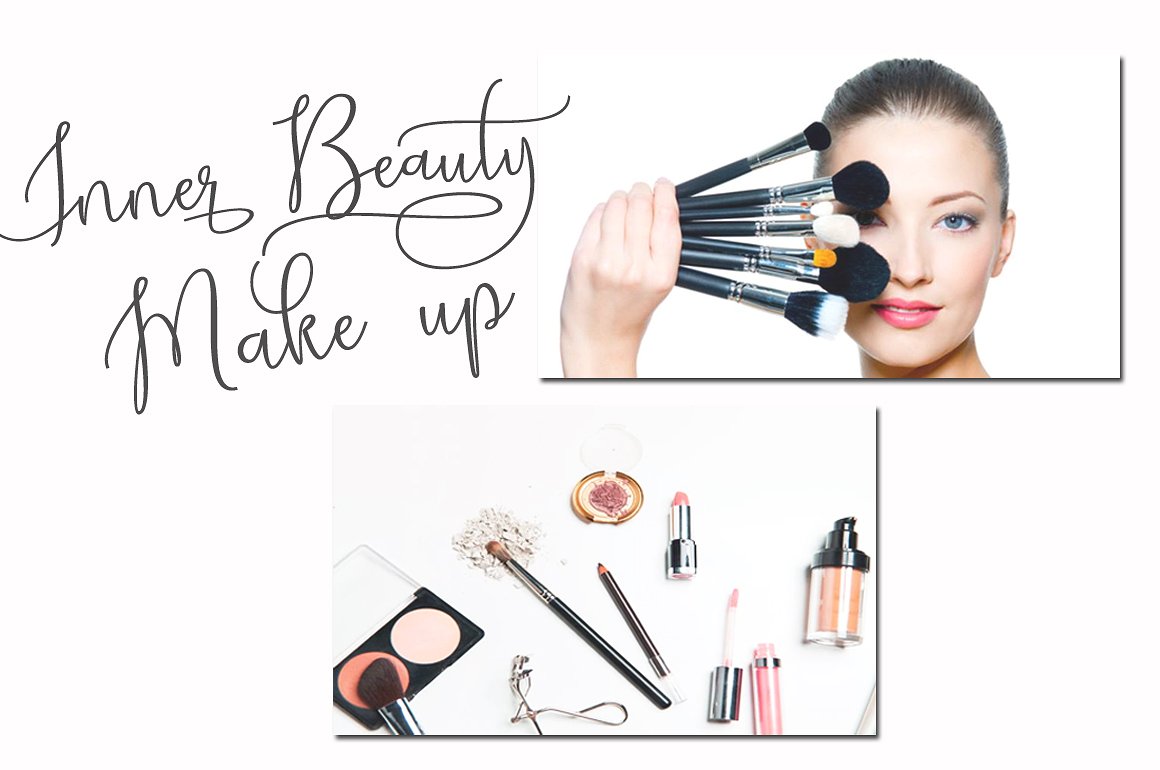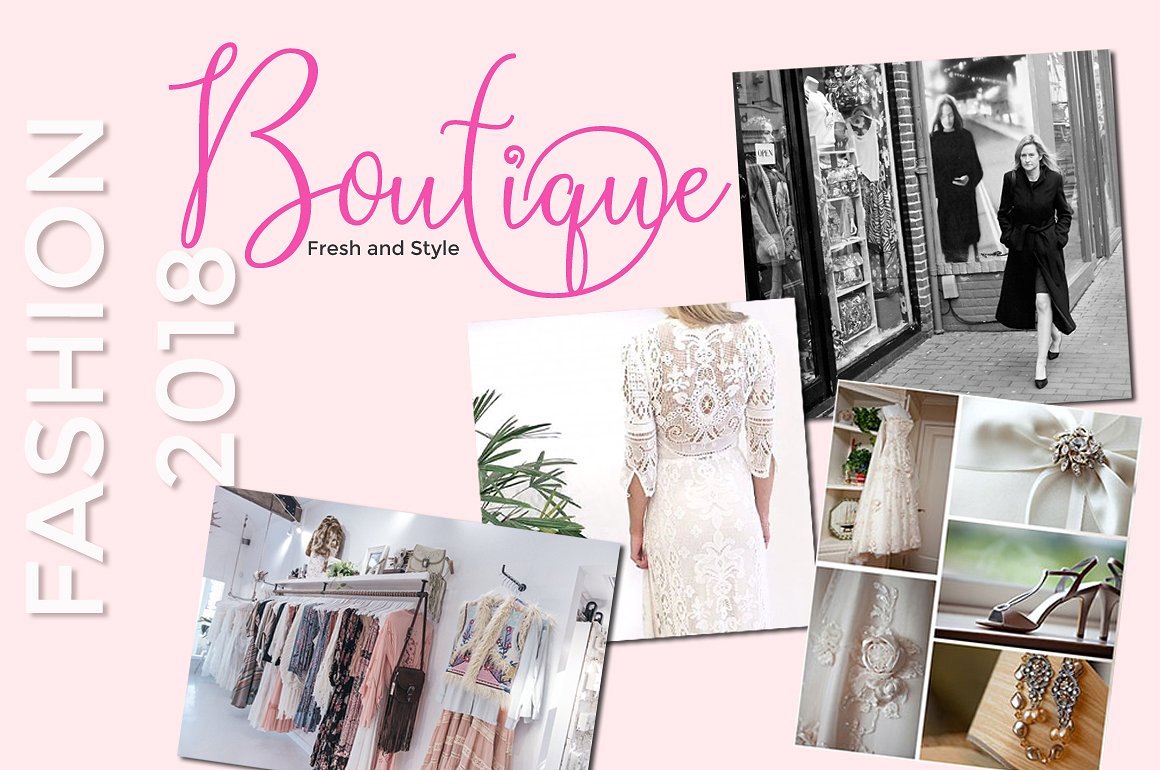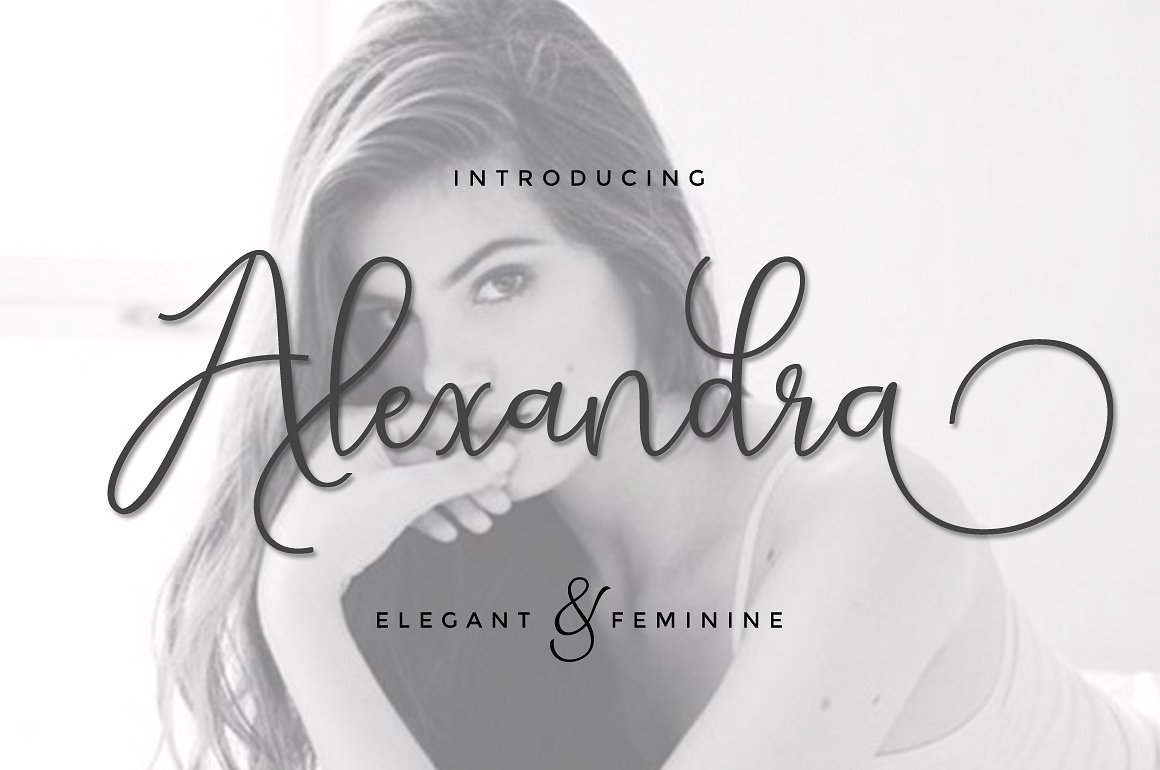
Alexandra Calligraphy
Alexandra Calligraphy Font
Alexsandra script, a beautiful casual modern calligraphy font. Contemporary script style that hit the trends nowadays. It would be a perfect mate for branding, logo, fashion stuff, cosmetic, apparel, journal, lookbook, greeting cards, a fancy presentation, glamor appearance, magazine. So versatile, right?